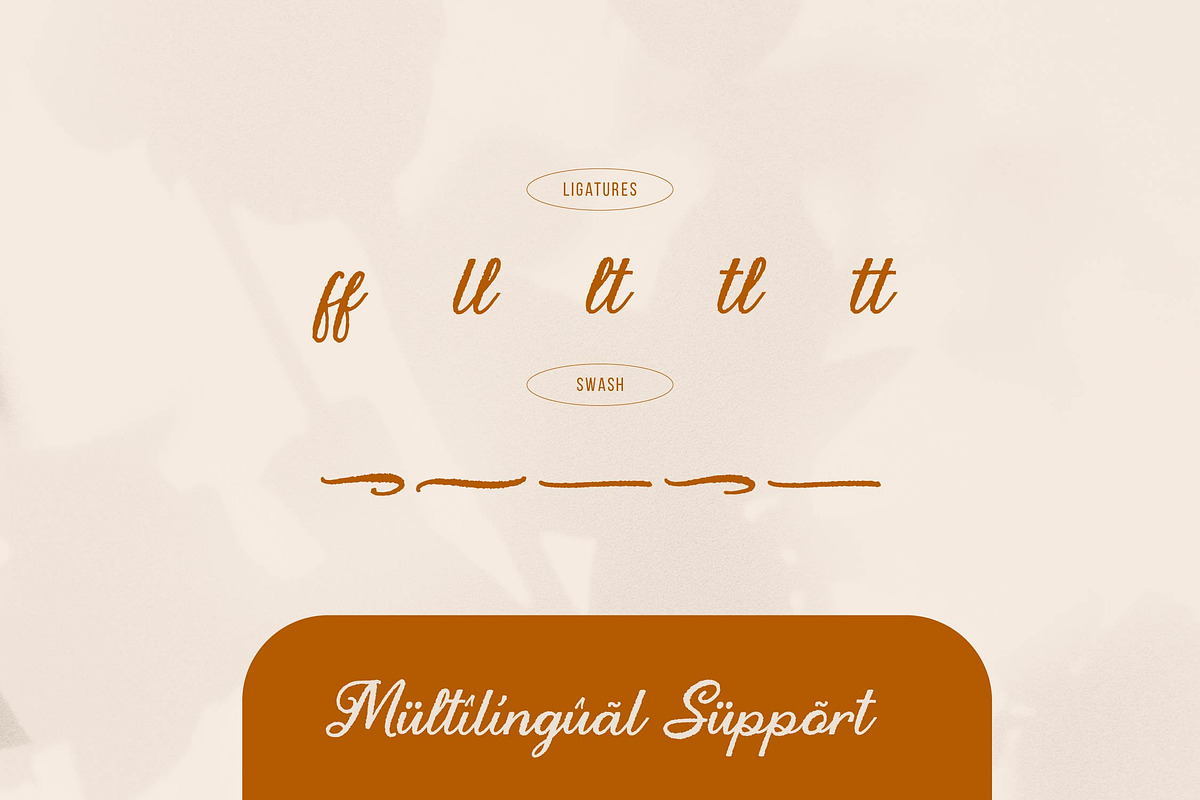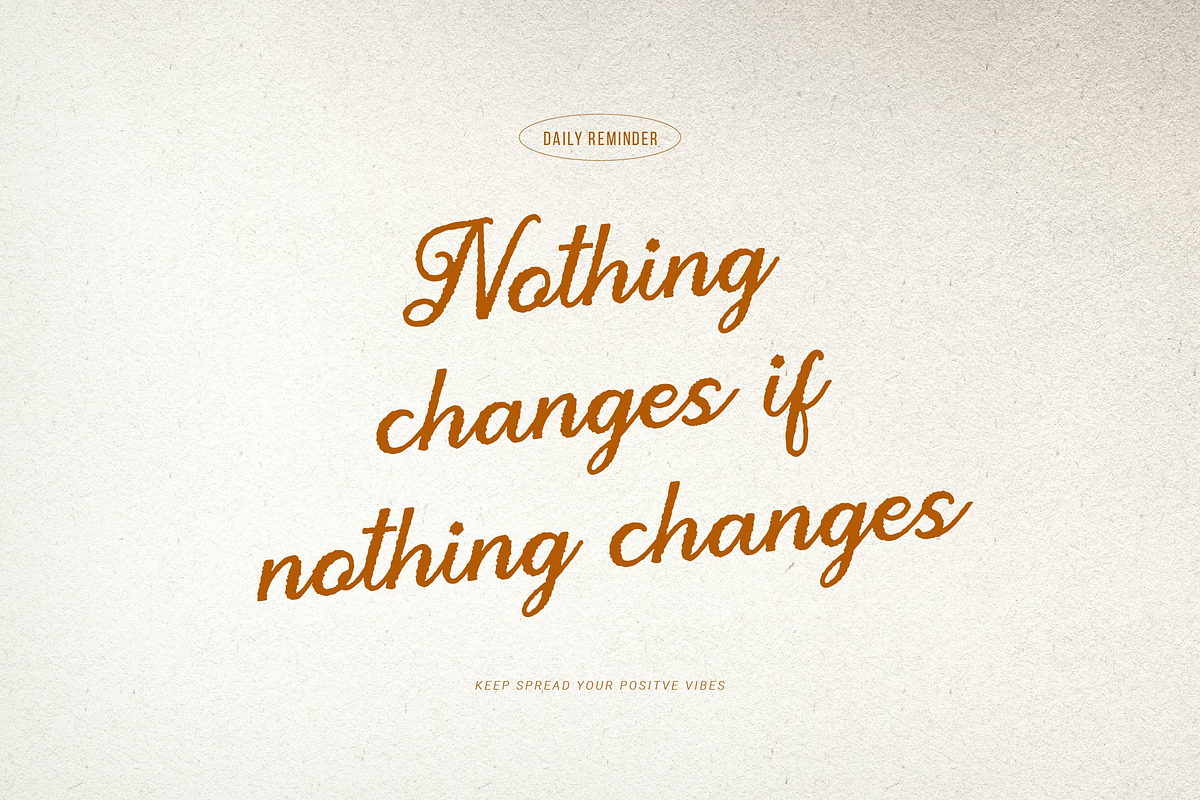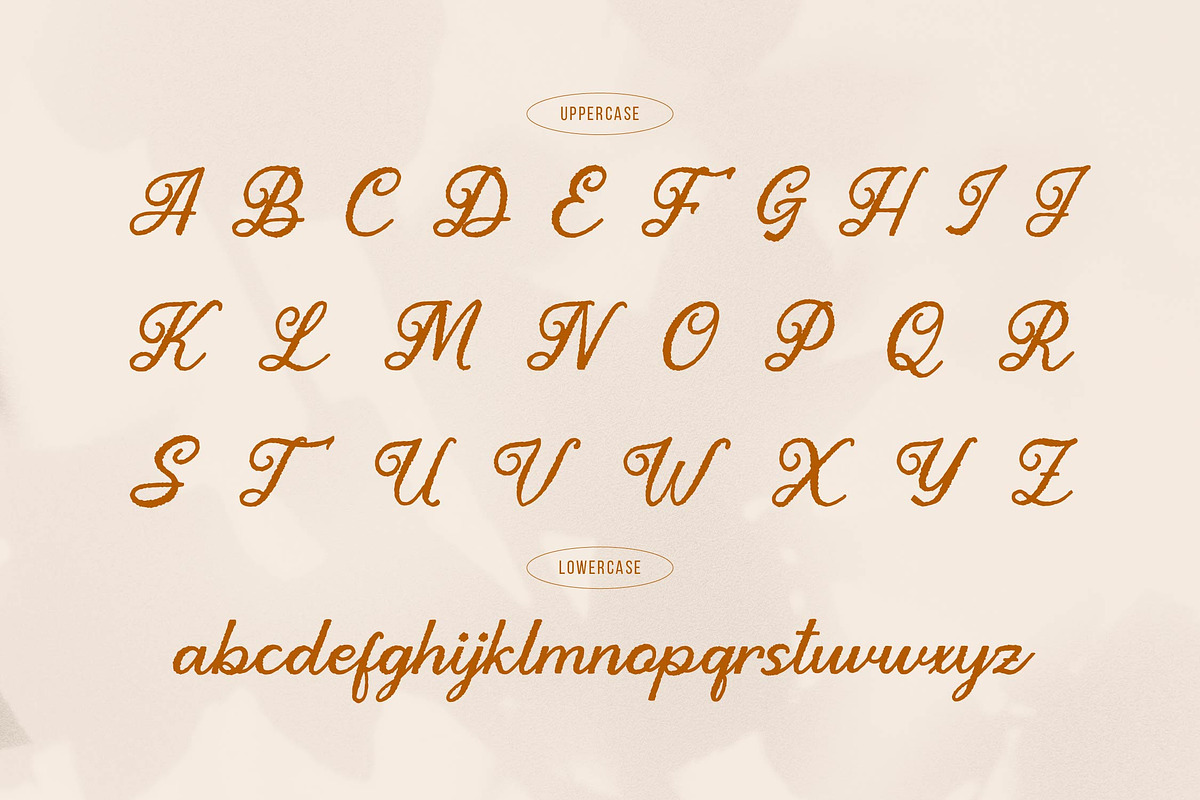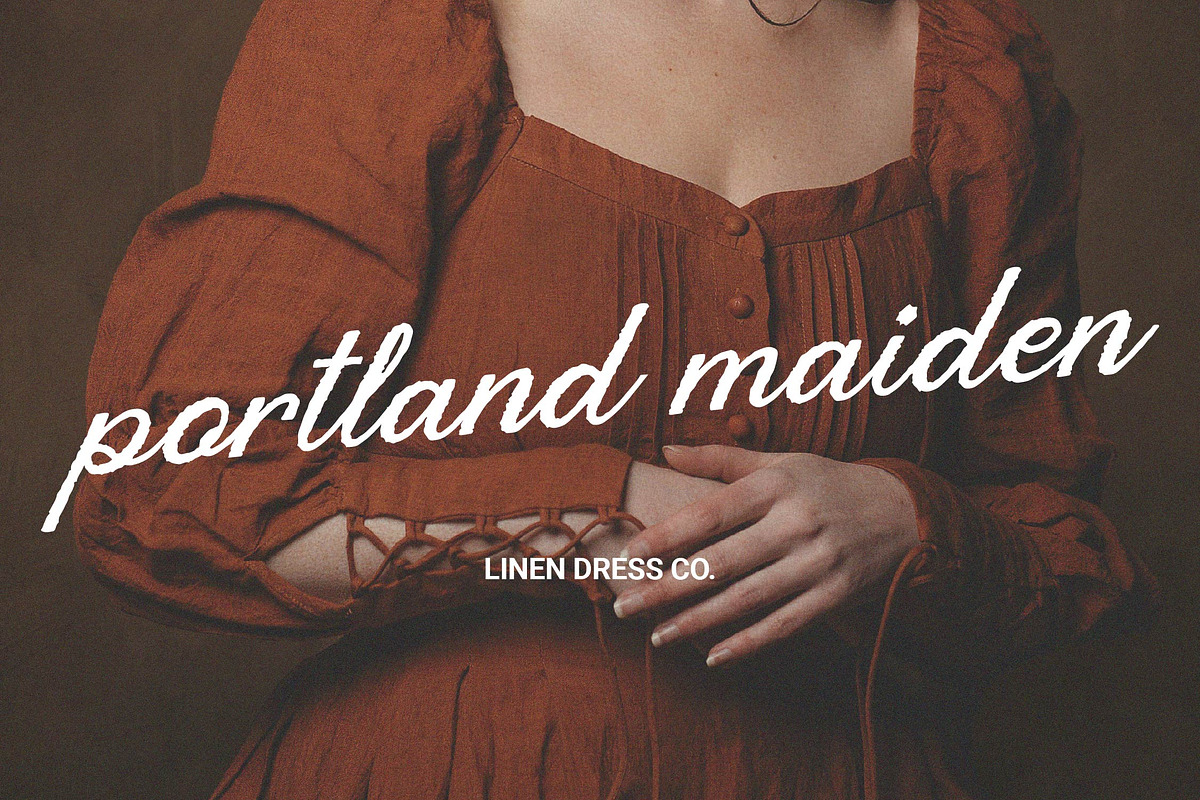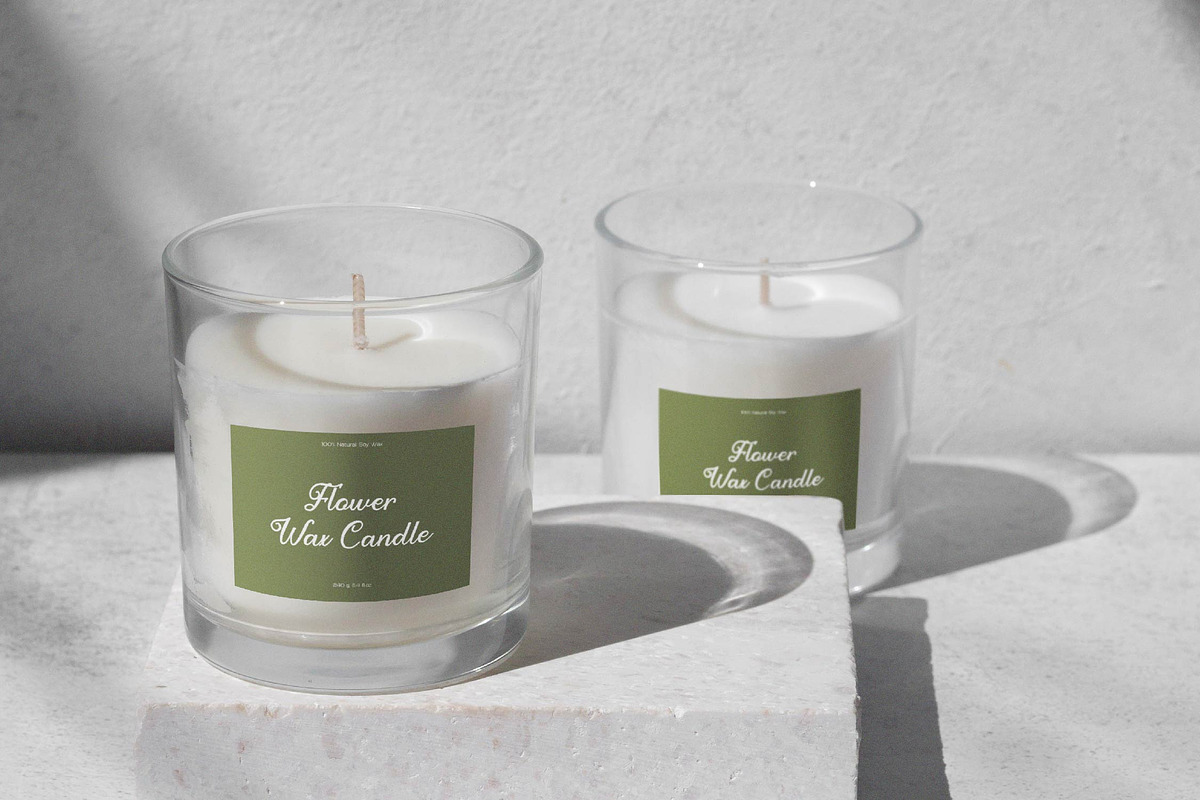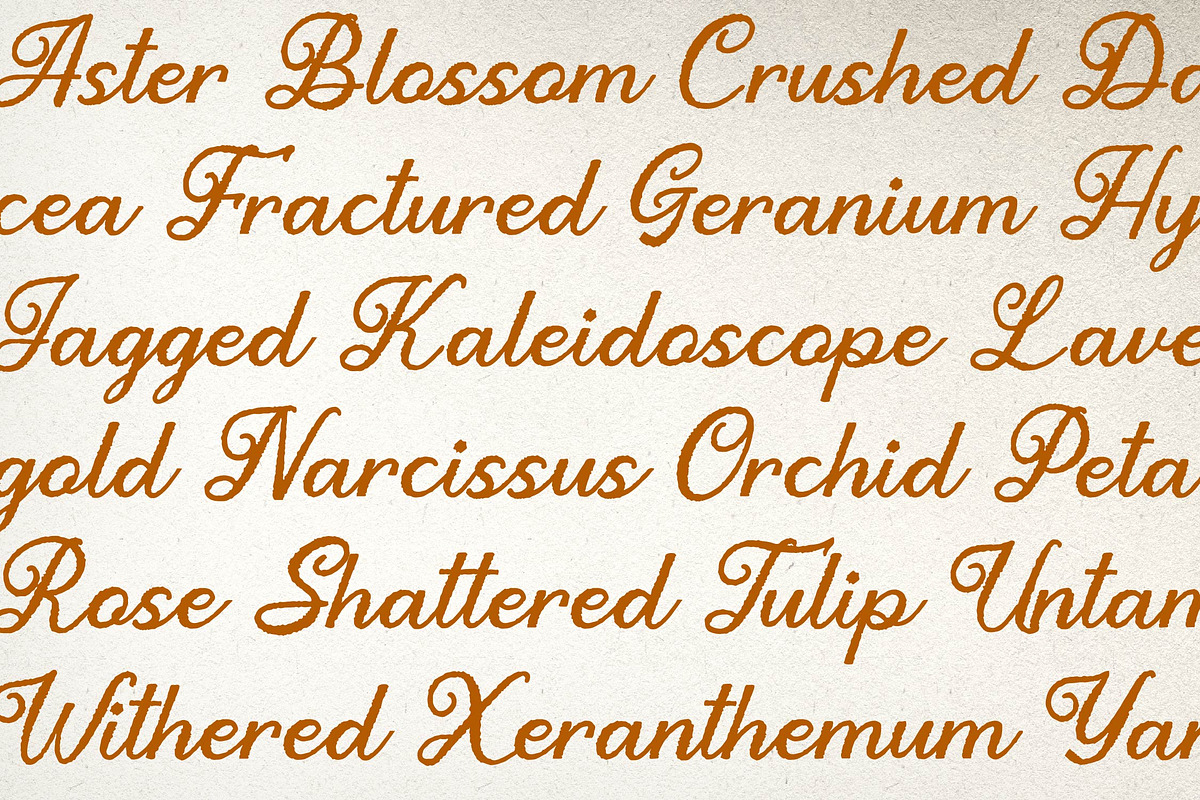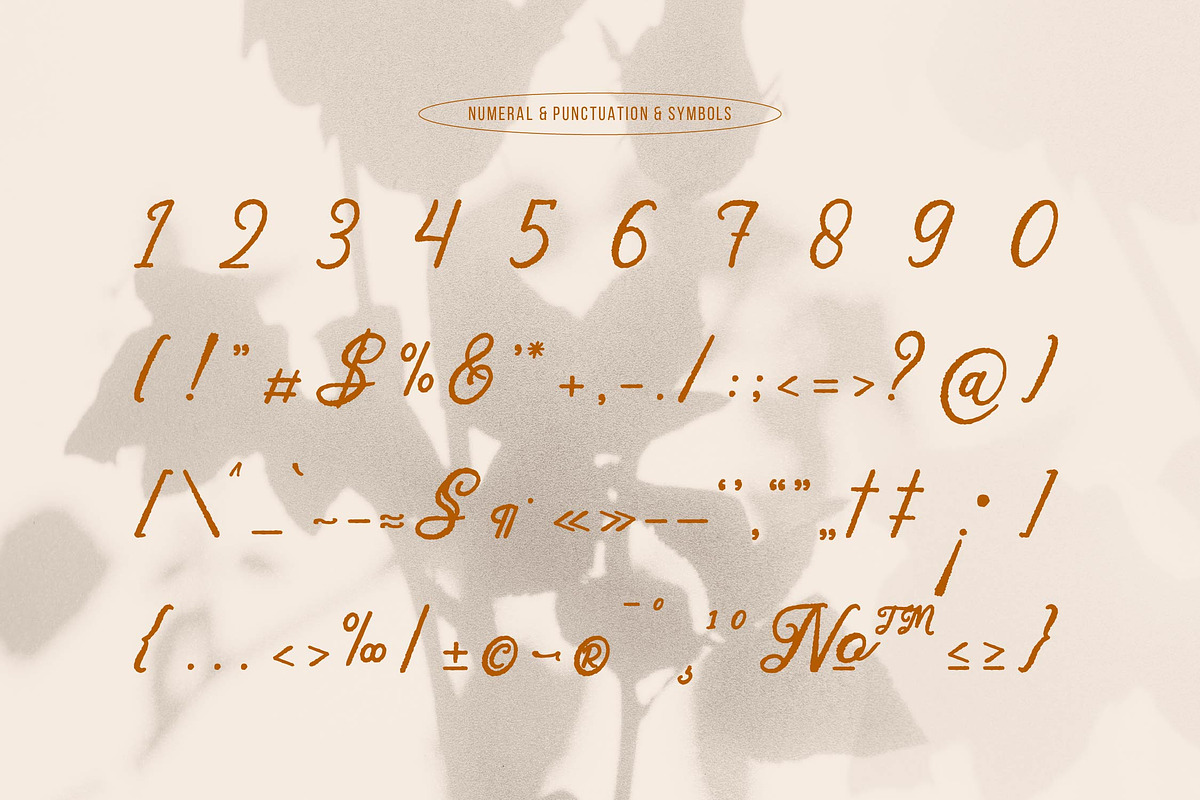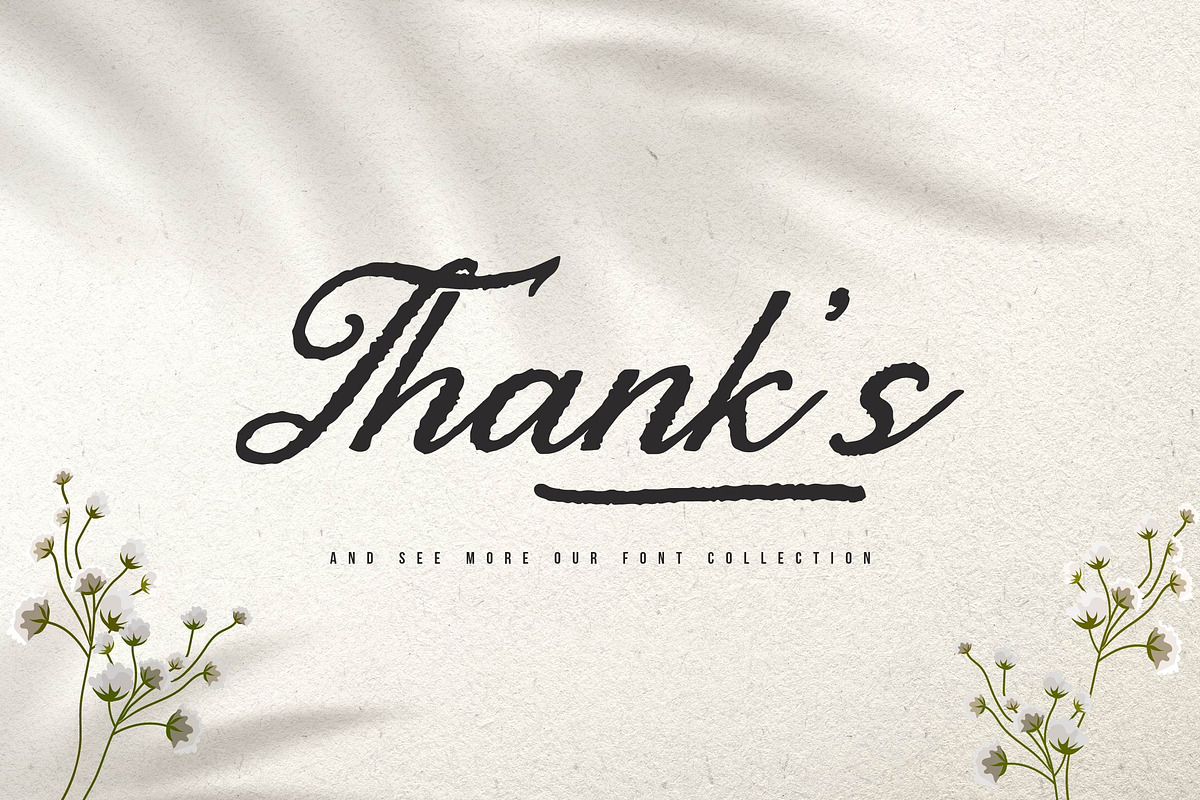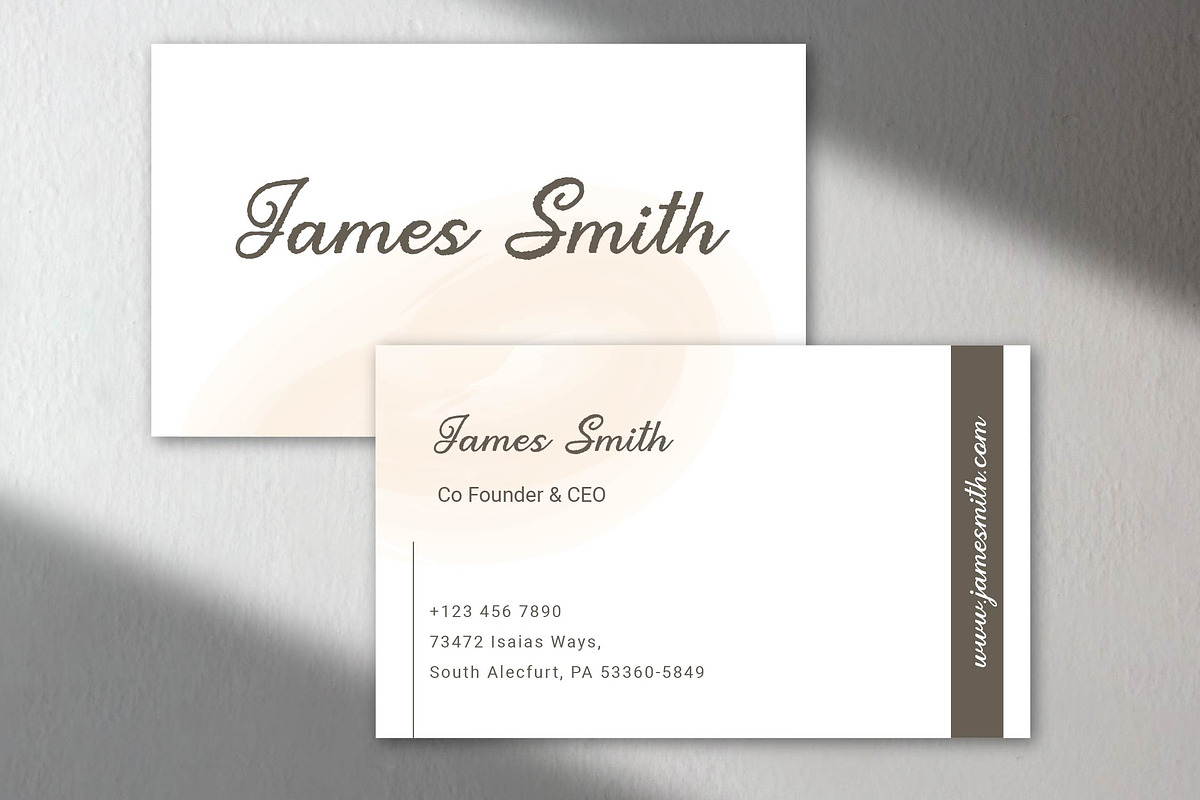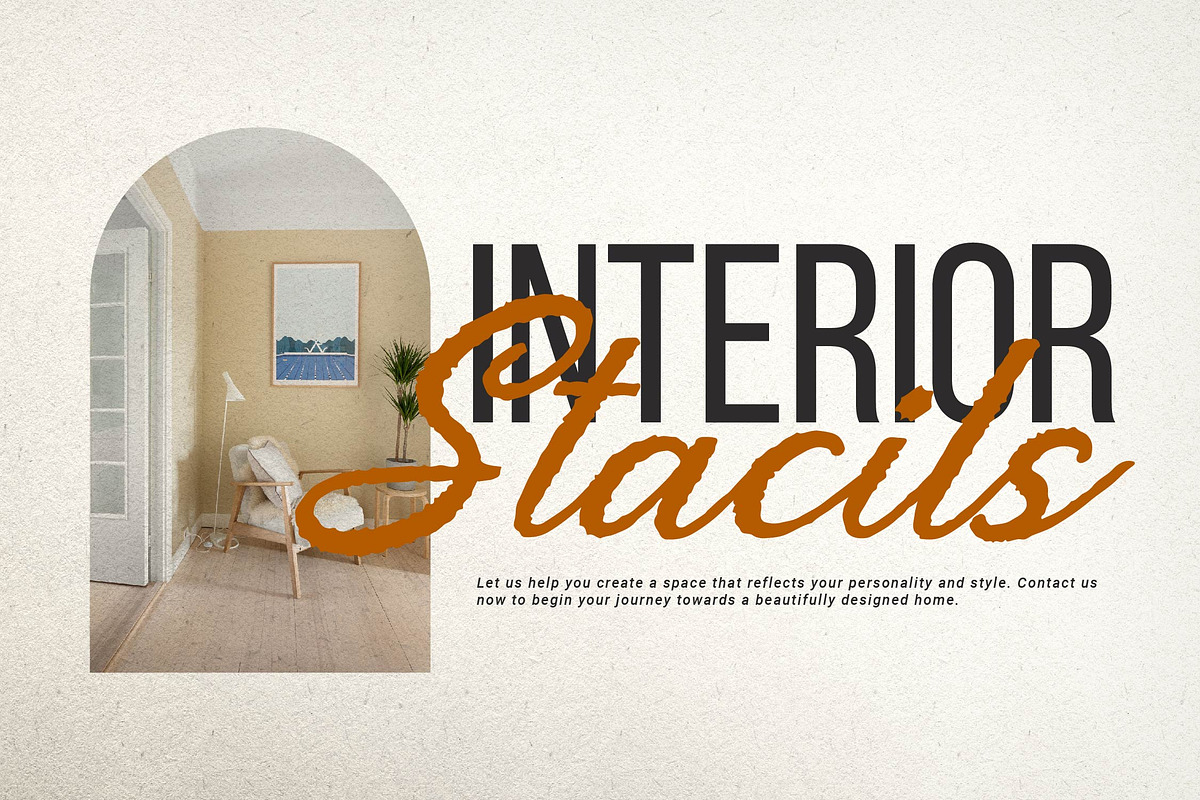
Dyatorn | Brush Handwritten Font
Dyatorn | Brush Handwritten Font, from Gracetypestudio, suitable for any projects such as: logos, branding projects, homeware designs, product packaging, mugs, quotes, posters, shopping bags, t-shirts, book covers, name card, invitation cards, greeting cards, label, photography, watermark, special events, and all your other lovely projects that need a Brush Handwritten Font taste.